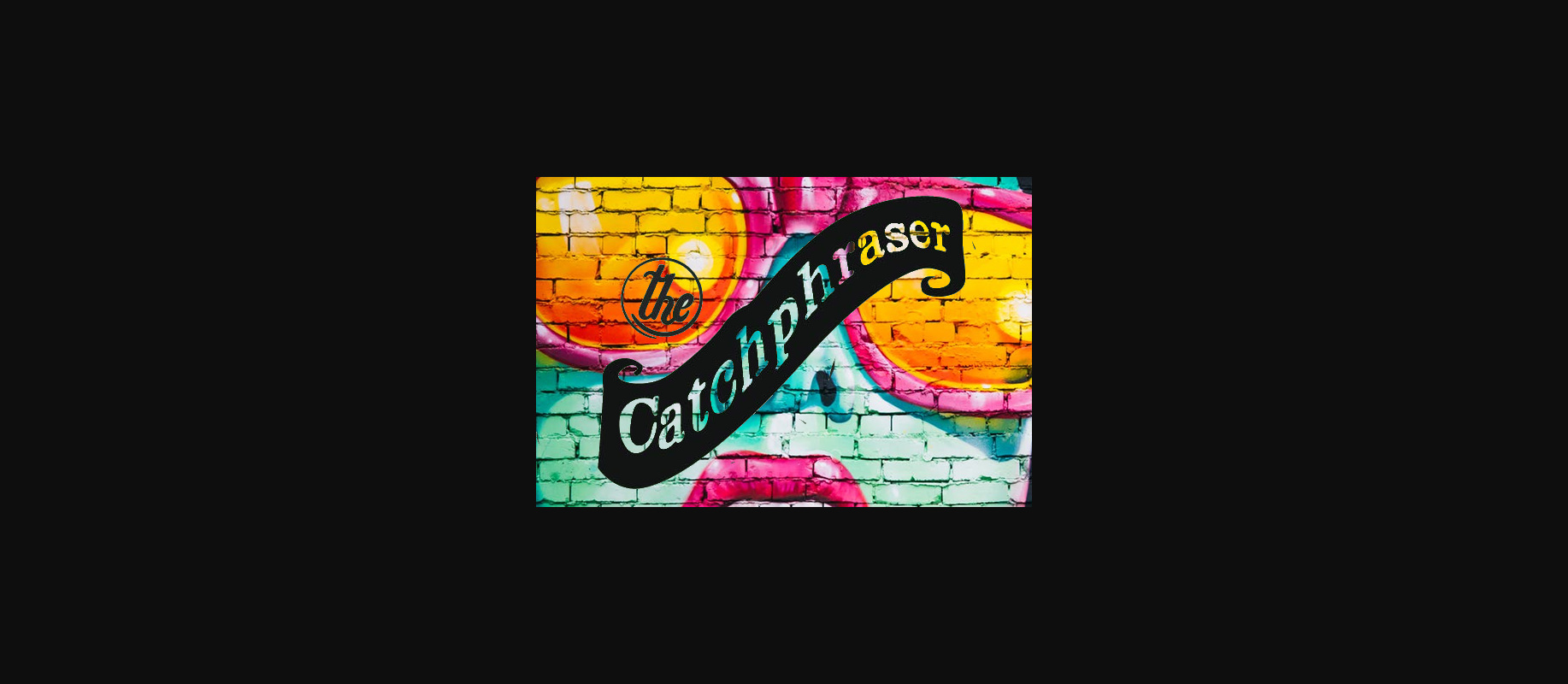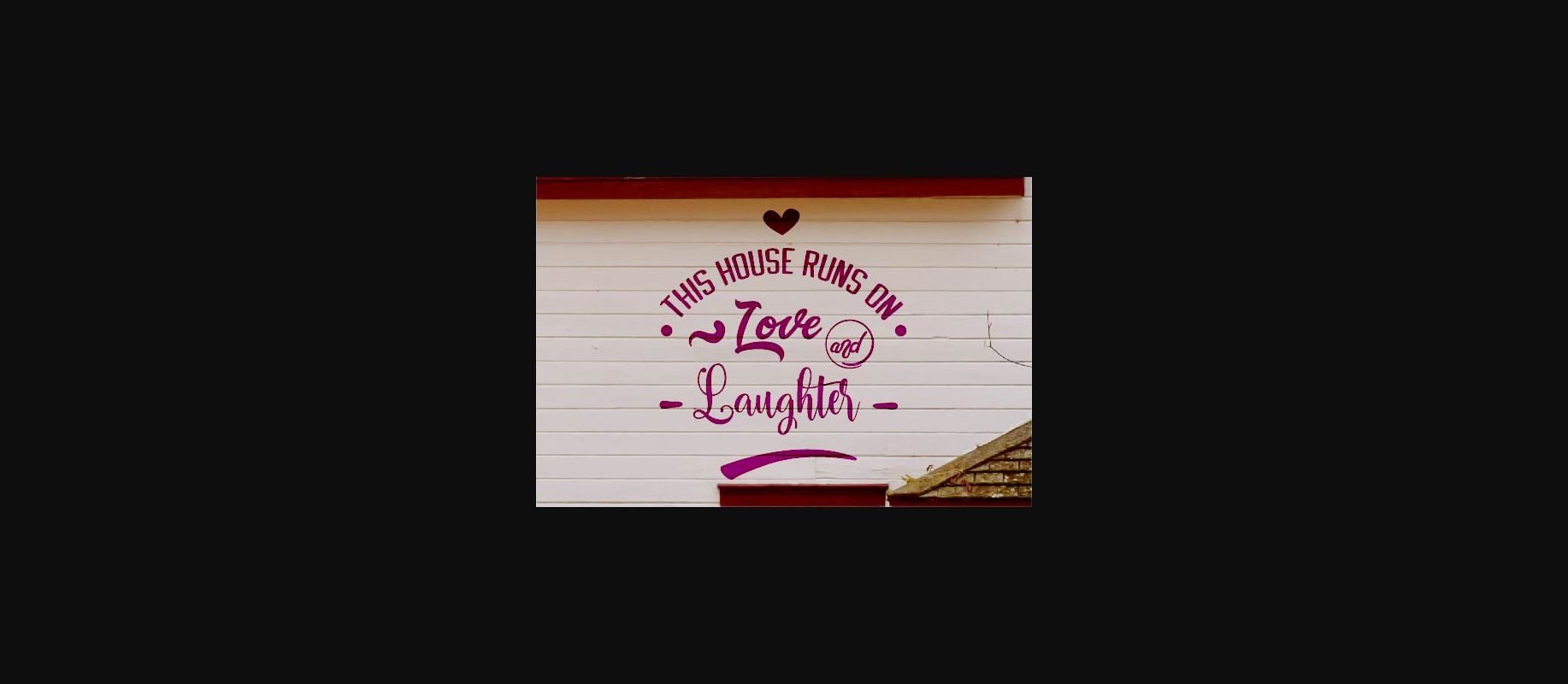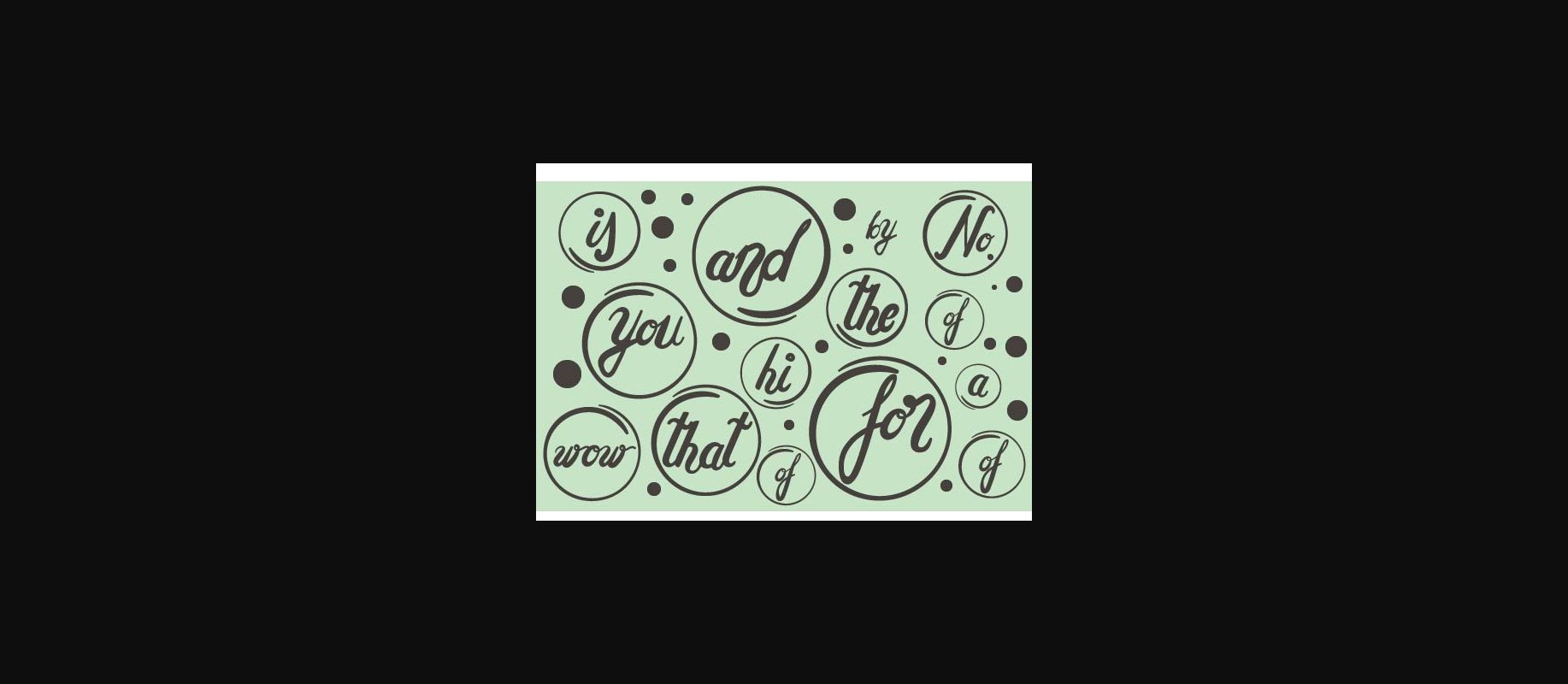
Catchphraser Font
About Catchphraser Font
Catchphraser is a fun decorative font filled with hand-lettered catchwords. Catchphraser can be used to add fun little elements to your designs.